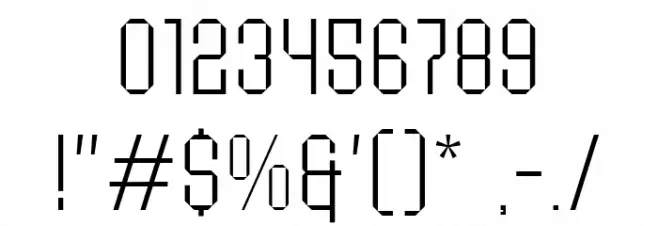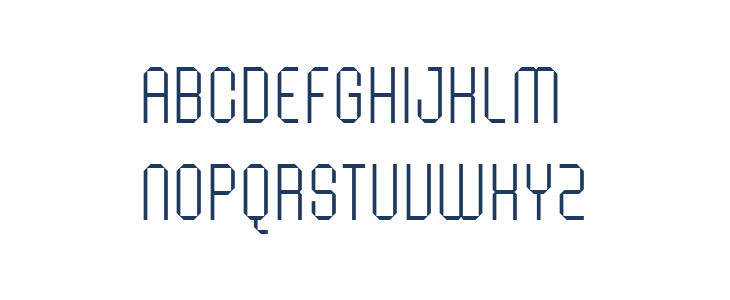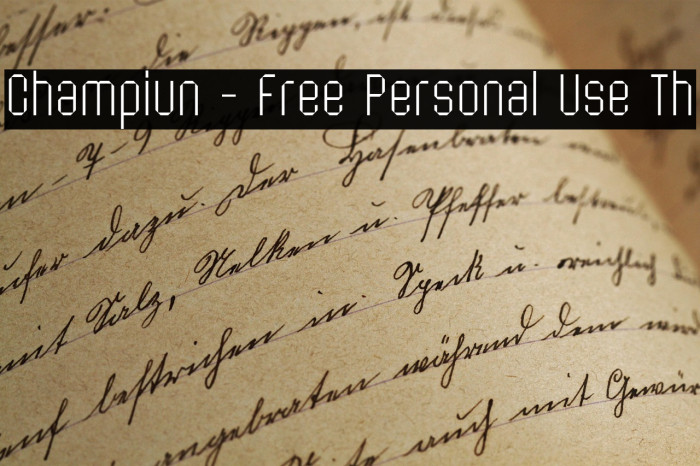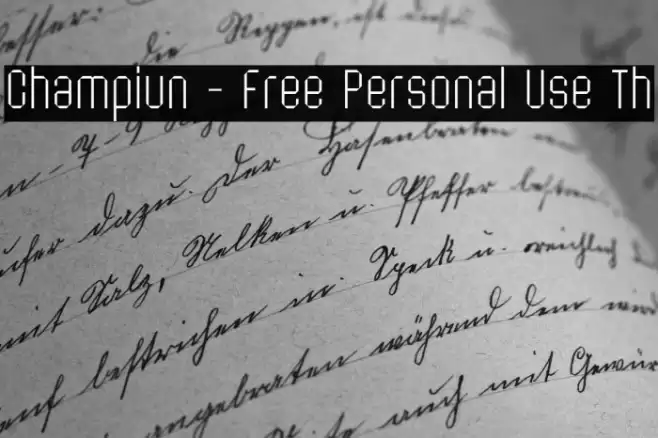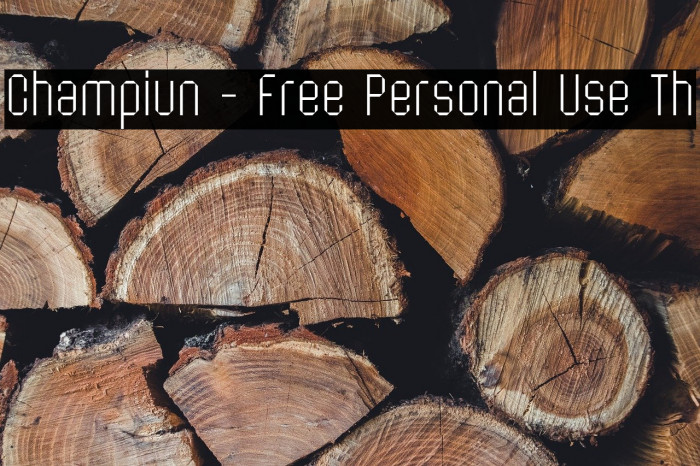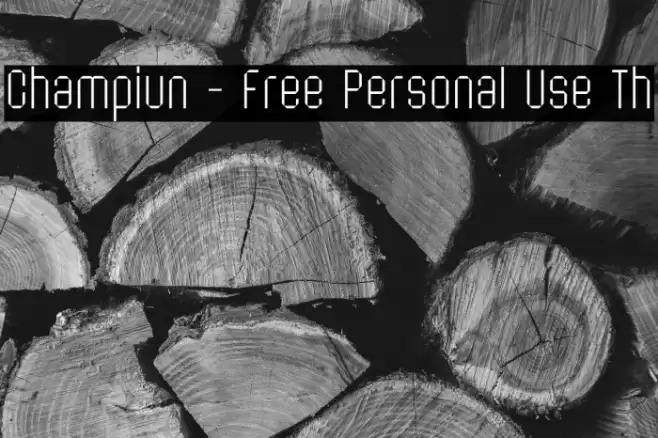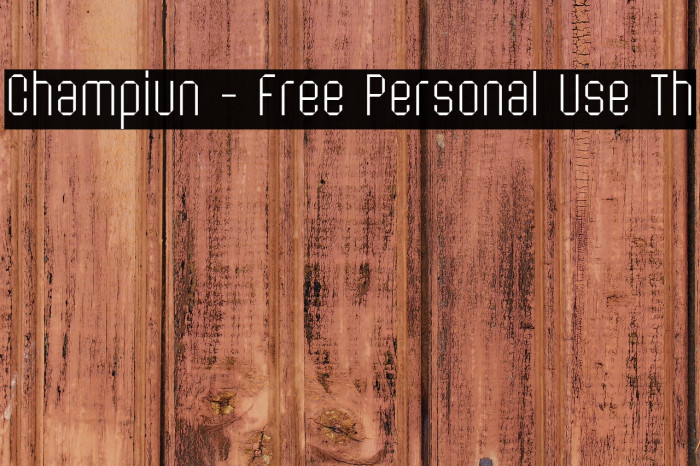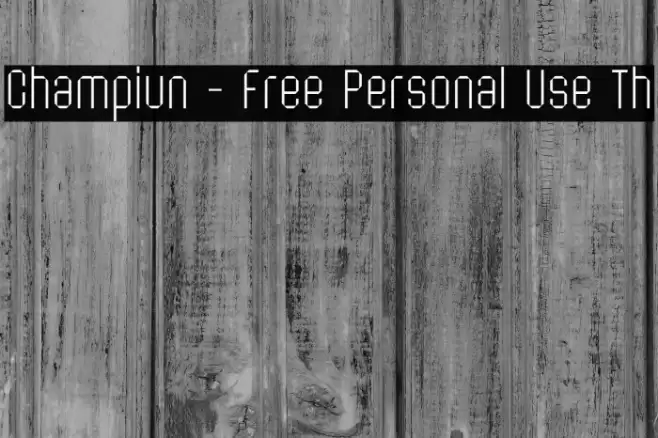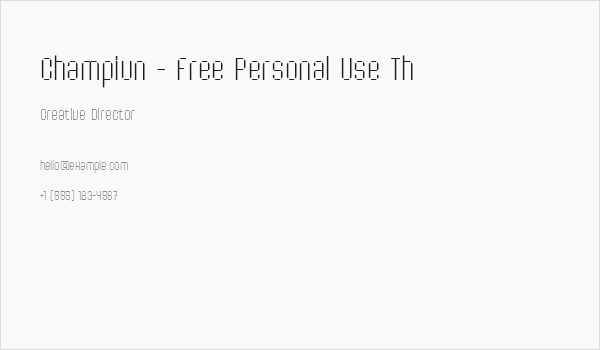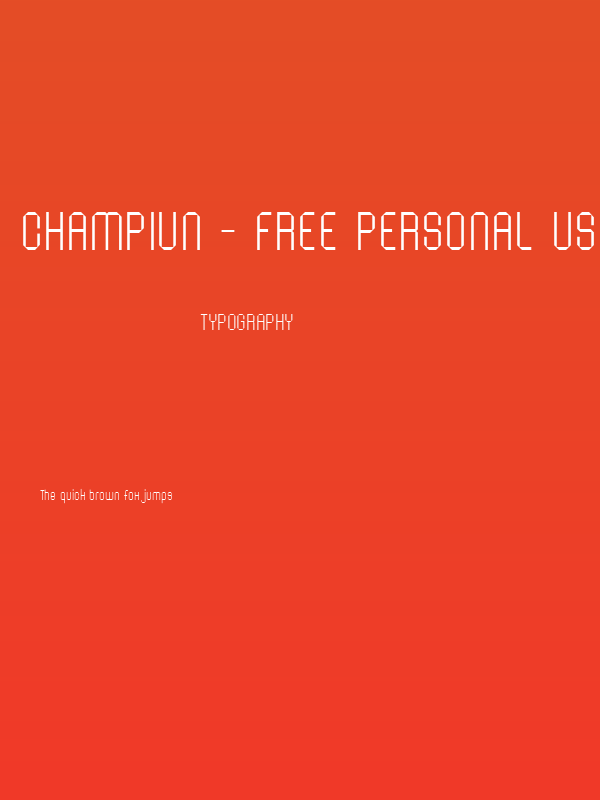
Champiun - Free Personal Use Th Font
Champiun - Free Personal Use Th Description
A geometric, digital-style font with a futuristic, tech-inspired appearance. It features sharp, angular lines and a consistent stroke width, giving it a modern and digital aesthetic.
| Overall Style | Modern, Futuristic, Tech-inspired |
| Use Case | Headlines, Digital displays, Logos, User interfaces |